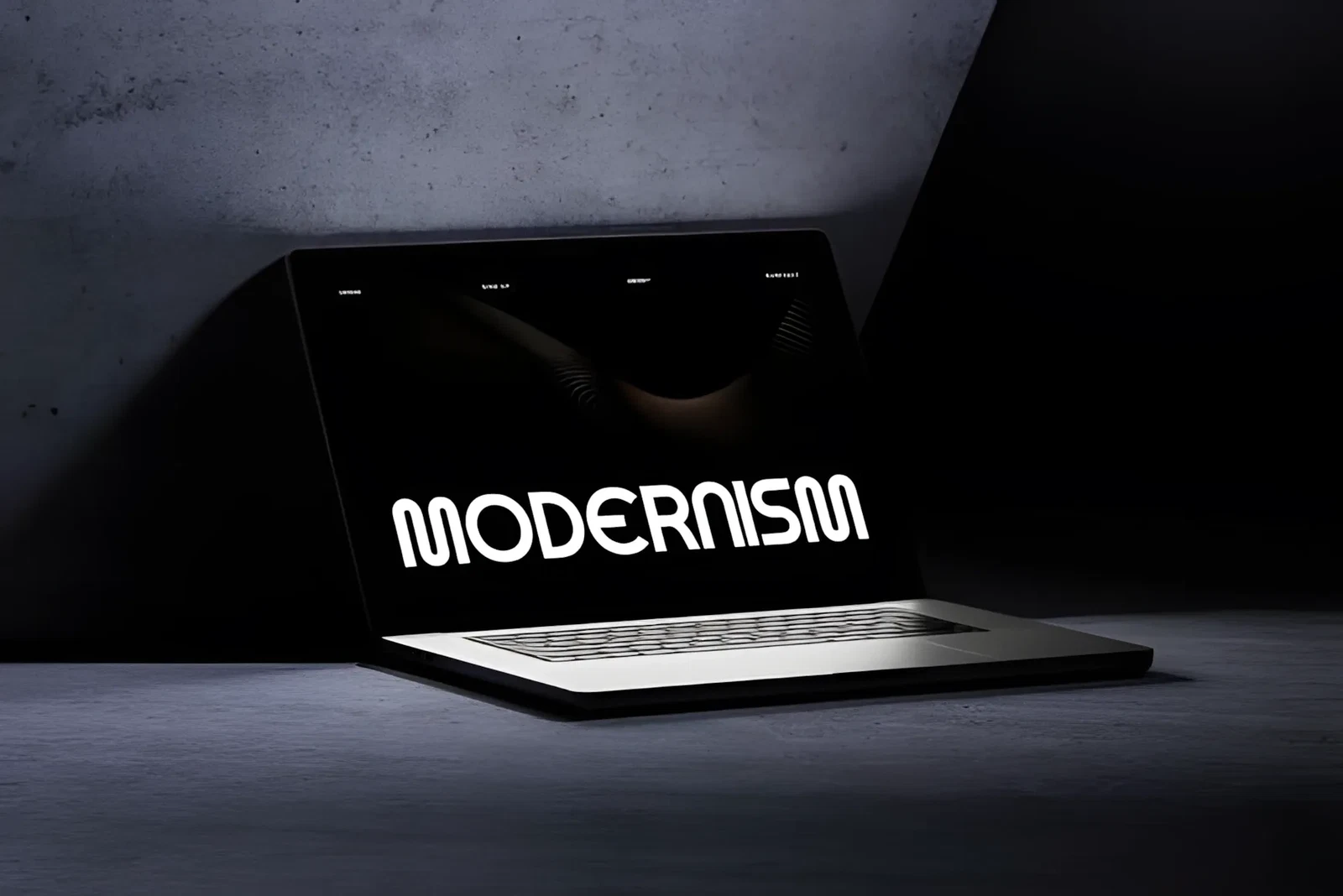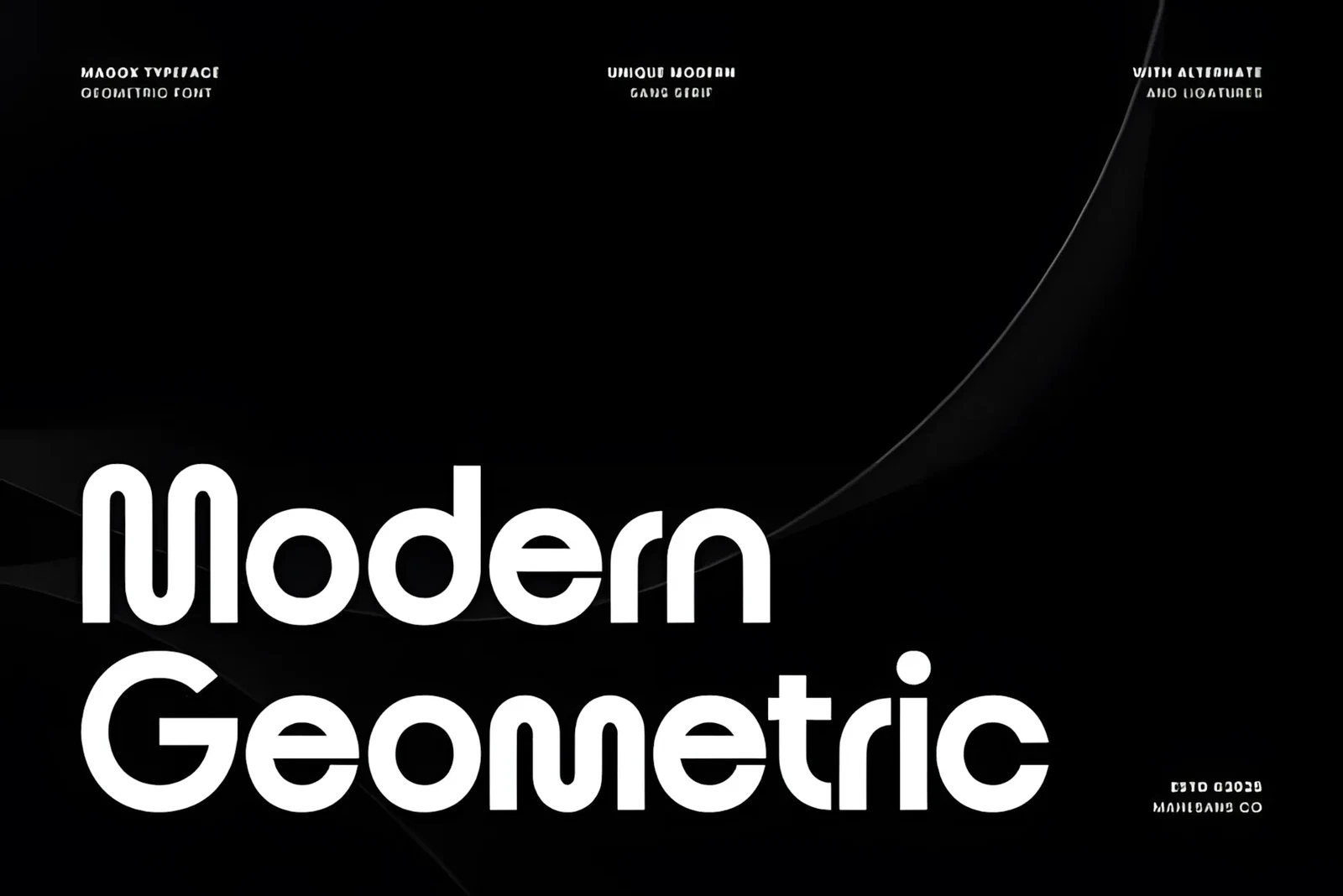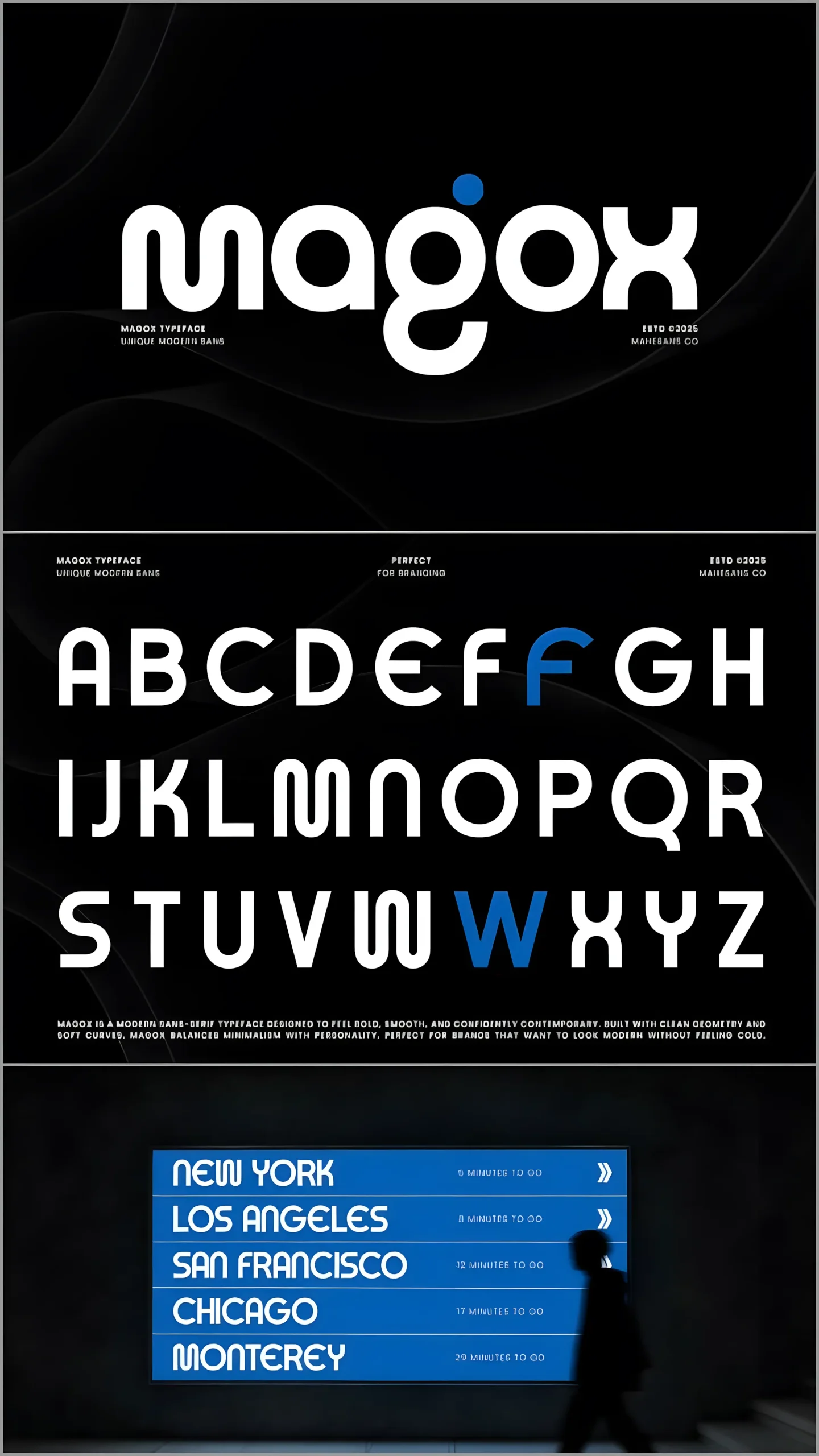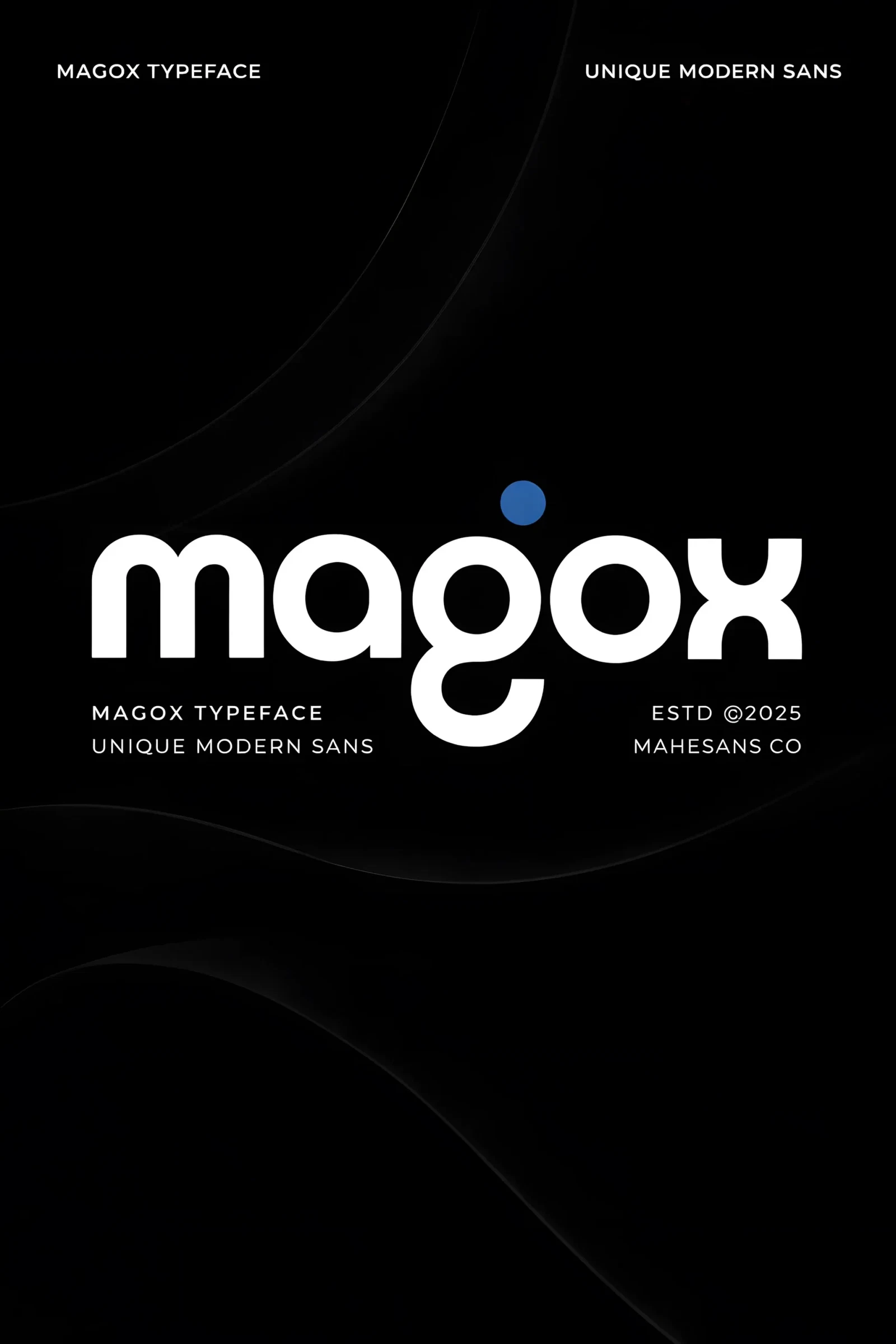
Some fonts are designed to follow trends. Magox Font is designed to set a tone. This modern sans-serif typeface combines clean geometry with soft curves, creating a look that feels bold, contemporary, and confident without becoming cold or aggressive.
Magox is built for brands that value clarity and balance. It communicates innovation through structure rather than decoration, making it a strong choice for designers working on high-end, forward-thinking visual projects.
A Modern Sans-Serif With Character
Magox stands out because of its rounded forms and smooth construction. The letterforms feel controlled and intentional, yet never rigid. This balance allows the font to feel both professional and expressive.
Instead of sharp, mechanical geometry, Magox uses softened curves that make text approachable and readable. The result is a font that feels modern, but not distant — refined, but not sterile.
This makes it especially suitable for brands that want to feel premium without being intimidating.
Visual Personality and Typography Feel
The font carries a contemporary, slightly futuristic tone while remaining grounded. It feels:
- bold but friendly
- clean without being minimalistic
- modern without relying on trends
Magox performs especially well in uppercase text, where its geometry creates strong visual presence. At the same time, lowercase characters remain smooth and legible, making the font versatile across different text sizes.
Its spacing and proportions help maintain rhythm in layouts, even when used in longer headlines or repeated branding elements.
Where Magox Works Best
Branding and Logo Design
Magox is particularly effective in branding projects that require a strong first impression. It works well for:
- brand identities
- logos and wordmarks
- luxury and premium brands
- creative studios and agencies
Paired with high-contrast photography and generous white space, the font helps create a polished and confident brand image.
Headlines and Editorial Design
Because of its clarity and width balance, Magox excels in headline use. It fits naturally into:
- posters and billboards
- magazine covers
- editorial layouts
- advertising visuals
The font draws attention without overpowering surrounding content.
Digital Design and Social Media
Magox adapts smoothly to digital environments. Its clean structure remains readable on screens, making it suitable for:
- websites and landing pages
- UI headers
- social media graphics
- digital campaigns
The font maintains its character across different resolutions and formats.
This versatility makes it suitable for designers who need one typeface that works consistently across multiple platforms.
Because Magox is not tied to short-term design trends, it remains useful over time, making it a reliable addition to any professional font library.
Why Clean Modern Fonts Stay Relevant
Modern sans-serif fonts like Magox remain popular because they focus on clarity and confidence. They allow content to speak while reinforcing brand identity through structure and proportion.
Magox succeeds by offering subtle individuality within a clean framework — a combination that keeps it relevant across industries and design styles.
Who Magox Font Is Best For
Magox is especially well suited for:
- graphic designers
- branding and identity specialists
- digital creators
- agencies and studios
- anyone building modern visual systems
It works equally well for bold branding statements and clean, structured layouts.
Final Perspective
Magox Font is a typeface built on balance — between strength and softness, clarity and character. Its modern sans-serif design, rounded geometry, and professional versatility make it a strong foundation for contemporary branding and visual communication.
For designers looking for a clean, confident font that feels modern without being generic, Magox offers a refined and future-ready typographic solution.